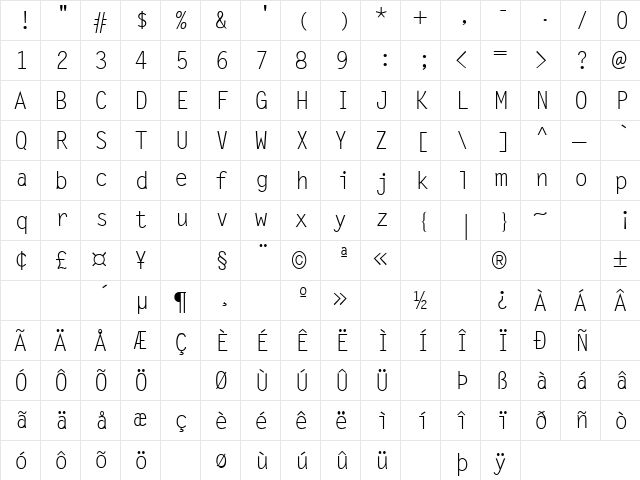
Celebration Day 11 Regular
Design Context for Celebration Day 11 Typeface
Celebration Day 11 is a composed and adaptable typeface that performs quietly and consistently across a wide range of design contexts.